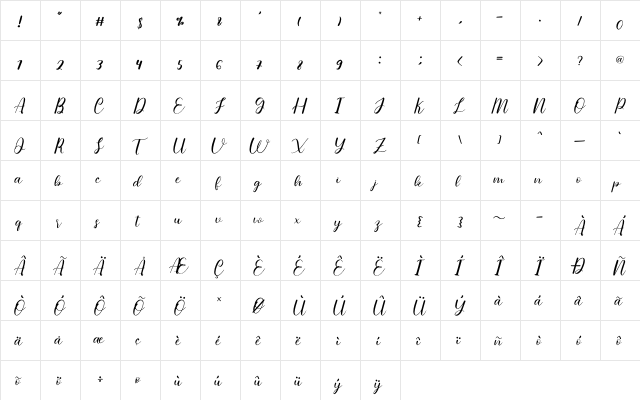
hello sweetheart Regular
| Designer | Typeline Studio 2020 |
Design Context for hello sweetheart Typeface
hello sweetheart is a composed and adaptable typeface that performs quietly and consistently across a wide range of design contexts.